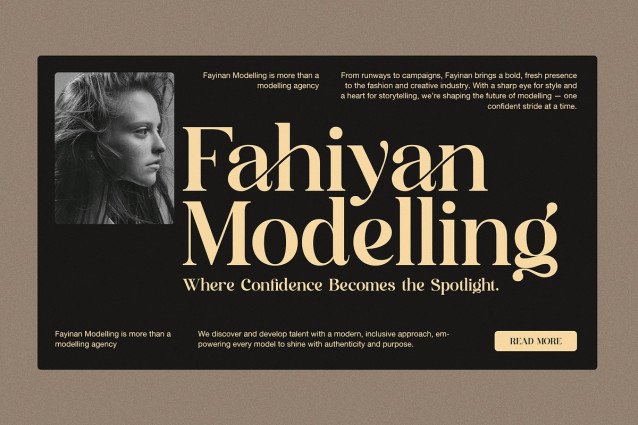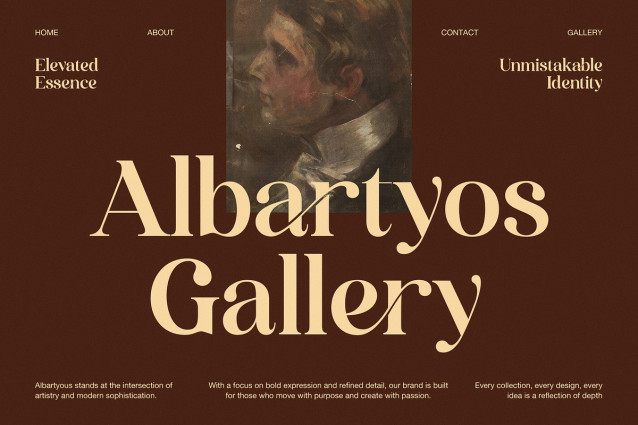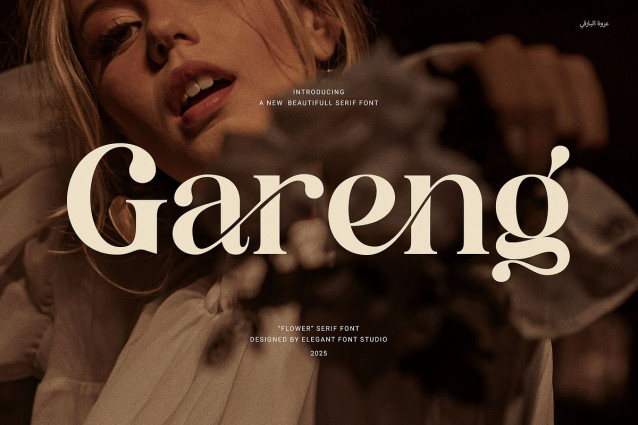
Gareng Font
Gareng Font – Elegant Serif Font is a modern serif typeface that combines elegance with functionality. Designed with proportional shapes and smooth ligatures, this font fits perfectly across a wide range of branding projects. Whether you’re creating logos, websites, magazines, product packaging, or advertisements, Gareng delivers a refined, professional look that stands out.
This font brings clear readability and sophisticated style, making it ideal for boutiques, food brands, fashion labels, and corporate designs. Its versatility shines in both print and digital applications, ensuring your work looks sharp and polished everywhere.